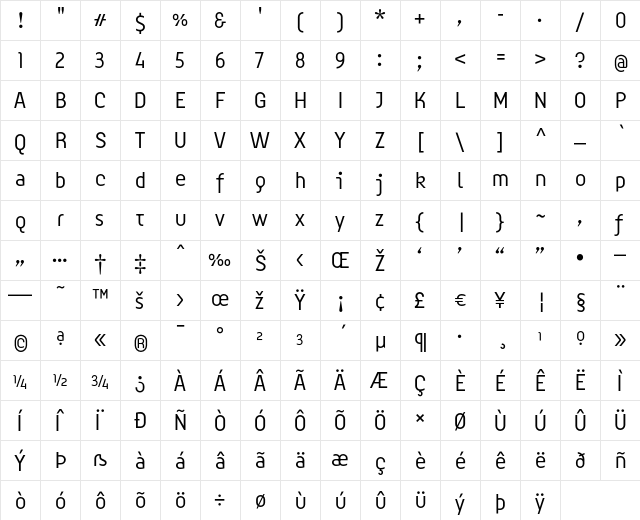
OgilveLFThin Regular
Design Context for OgilveLFThin Typeface
OgilveLFThin takes a measured approach to typography — its balanced proportions and neutral character make it a reliable workhorse for both digital and print work. Its slender proportions lend an understated elegance to any composition.